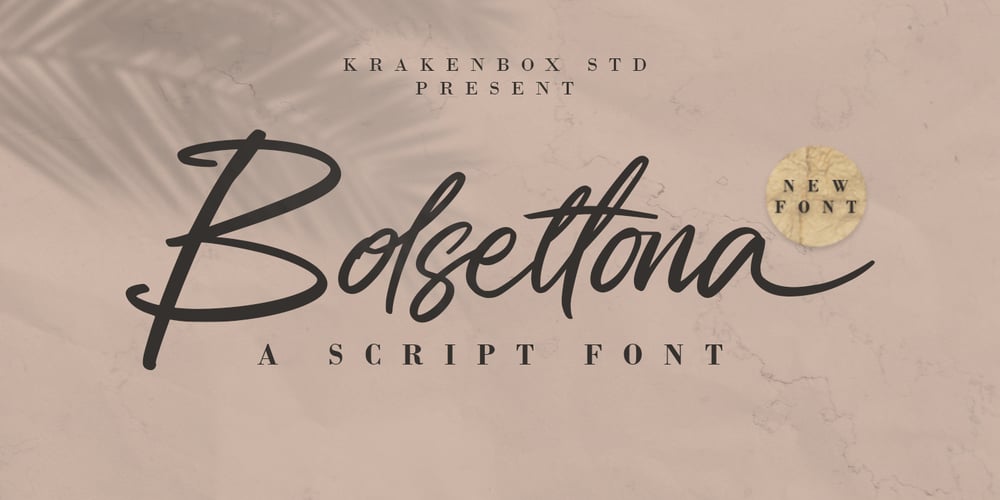
Bolsettona Font Family was designed by Yahdi Kumala and published by Krakenbox Studio. Bolsettona contains 1 styles and family package options. Bolsettona is a fashionable sophisticated signature-style script with its own unique curves and an elegant inky flow. Its elegant, classy, and modern look makes it a fantastic choice for fashion, signature, album covers logos and more. This font is PUA encoded which means you can access all of the amazing glyphs and ligatures with ease!